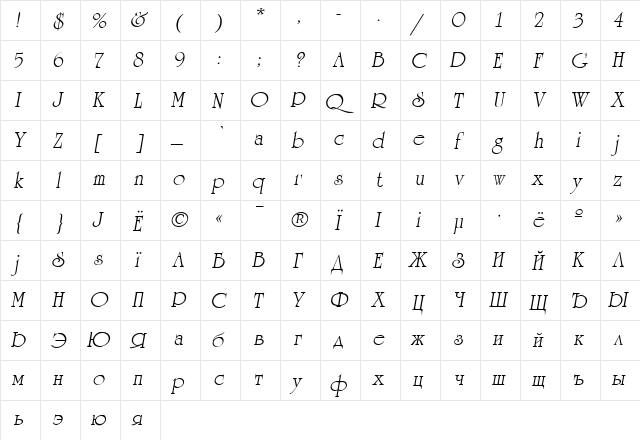
AGUniversityCyr-Oblique Medium
Design Context for AGUniversityCyr-Oblique Typeface
AGUniversityCyr-Oblique takes a measured approach to typography — its balanced proportions and neutral character make it a reliable workhorse for both digital and print work. The slanted form adds forward momentum and visual energy.